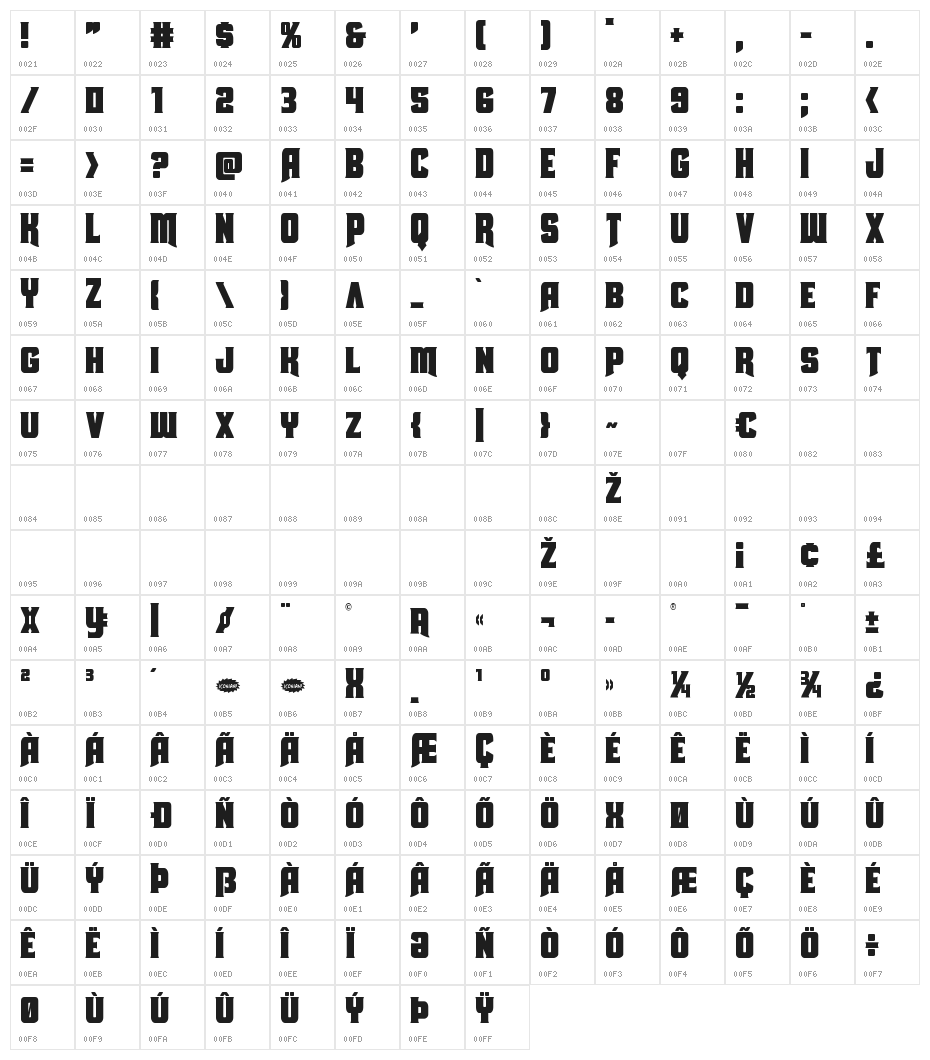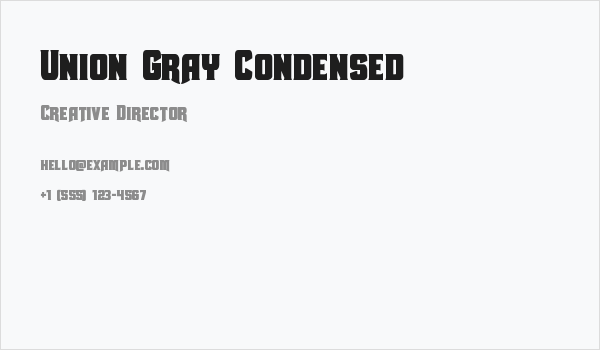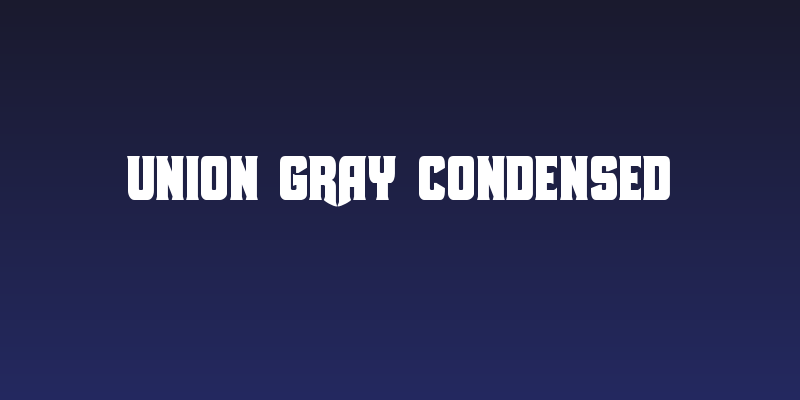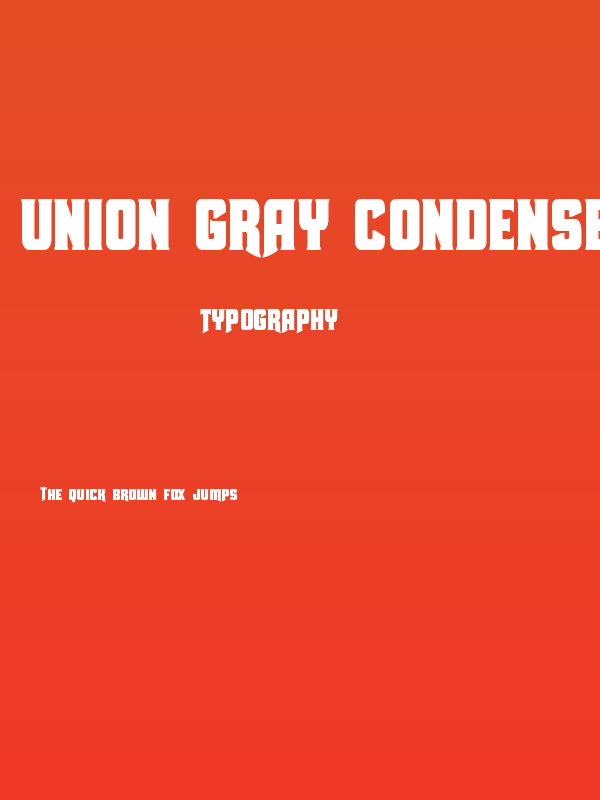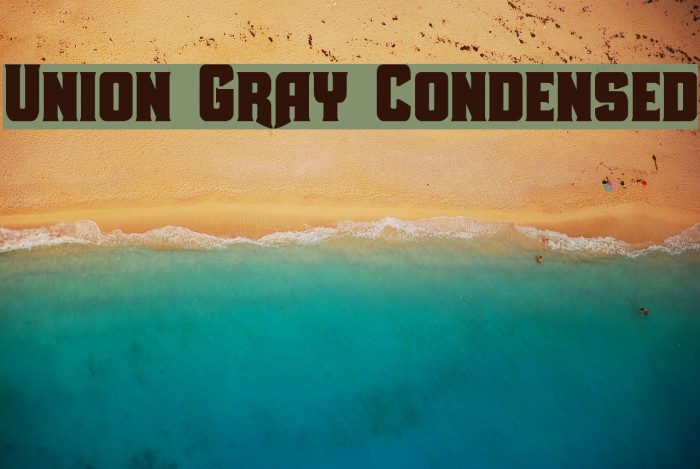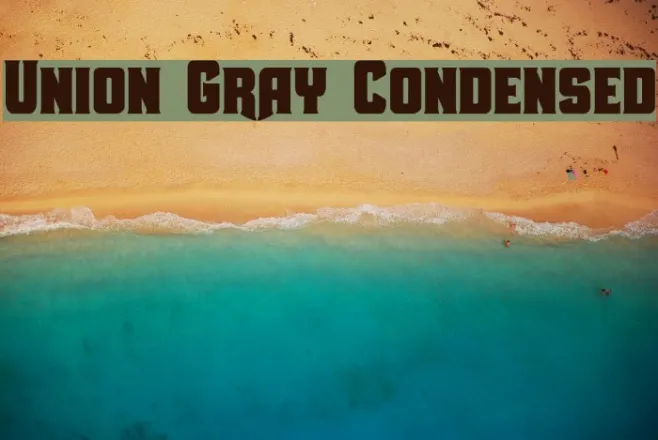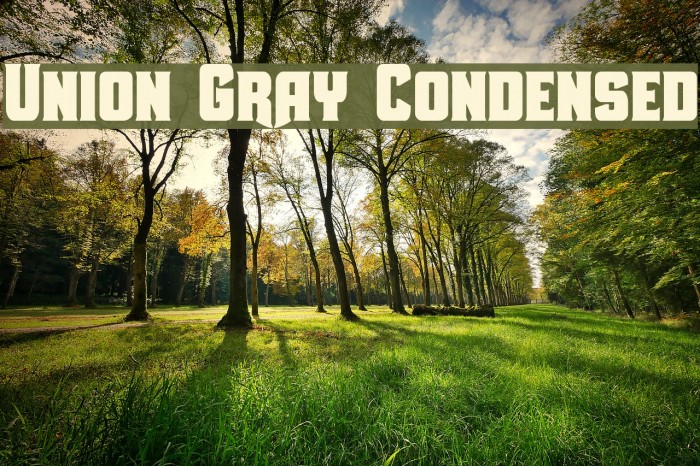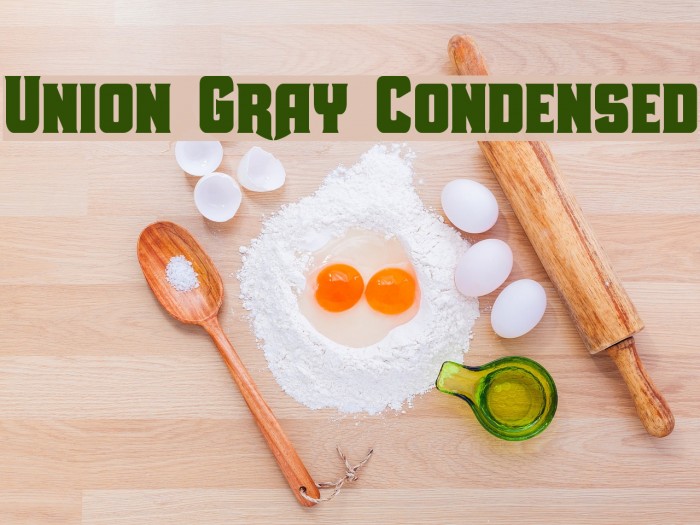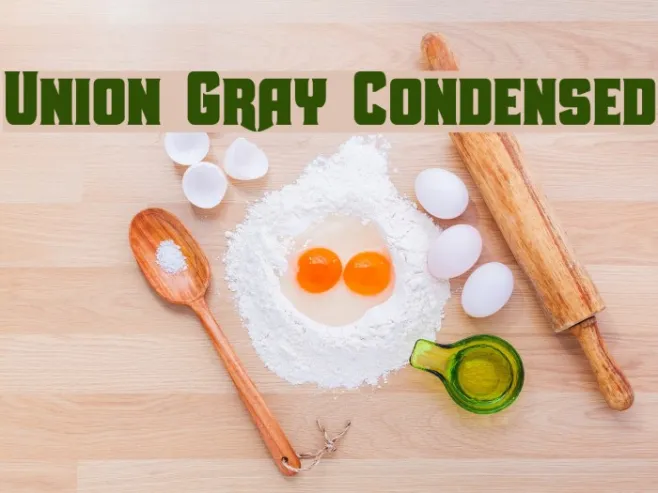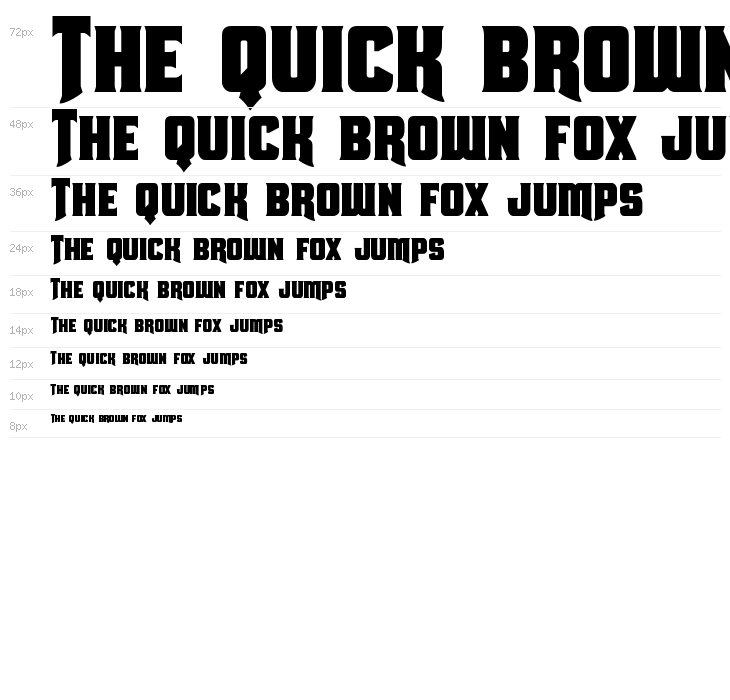
Union Gray Condensed Font
Union Gray Condensed Description
This font features a bold and striking design with a condensed width, giving it a strong and impactful presence. The characters are crafted with sharp angles and a geometric style, creating a modern and assertive look. The uppercase letters are particularly dominant, with a uniform height and width that enhances their boldness. The numbers and special characters maintain the same robust style, ensuring consistency across all elements. This font's design is ideal for projects that require a commanding and attention-grabbing typeface.
| Proposed Projects | Ideal for headlines, posters, logos, and branding materials that require a strong visual impact. |